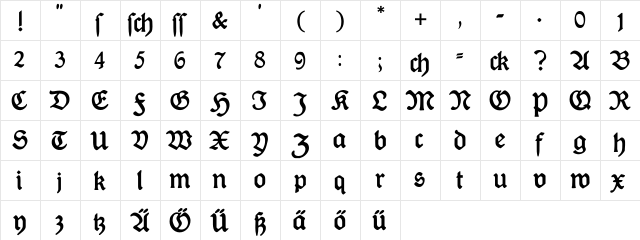
DeutscheDruckschrift Regular
Design Context for DeutscheDruckschrift Typeface
DeutscheDruckschrift is a composed and adaptable typeface that performs quietly and consistently across a wide range of design contexts.